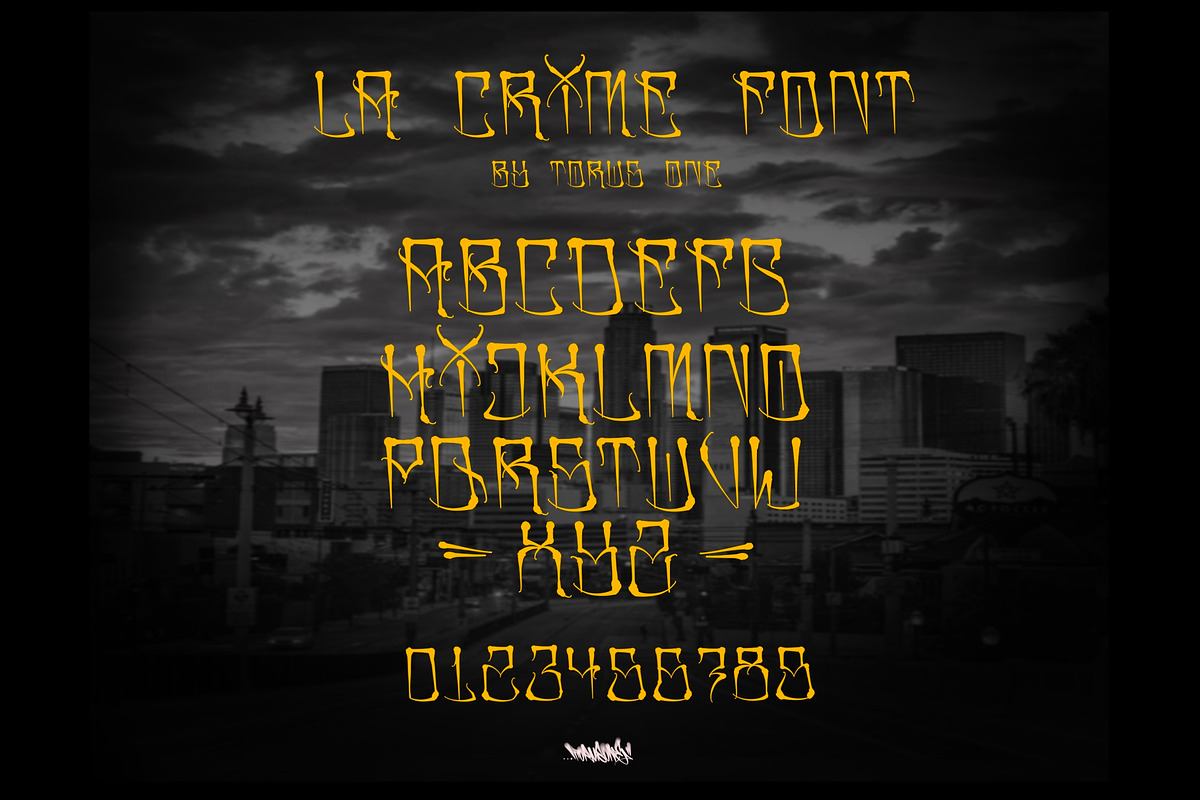
Chicano Gangsta Graffiti Font - LA Free Download
Chicano Gangsta Graffiti Font – LA Free Download is a bold, expressive typeface inspired by West Coast street art and classic Chicano tattoo lettering. With sharp edges, flowing strokes, and heavy urban influence, this font is perfect for graffiti-style artwork, hip-hop event posters, streetwear branding, music covers, and designs that need raw attitude with cultural depth.
Rooted in the spirit of Los Angeles street culture, this font captures the essence of identity, rebellion, and pride. Whether you're creating merch, digital content, or signage with edge, Chicano Gangsta gives your work a distinct and authentic voice. It’s available for free testing, but a commercial license is required for any business or monetized use.
Stand out with streetwise style using Chicano Gangsta Graffiti Font – LA Free Download and give your designs a gritty, West Coast vibe that commands attention. It’s a must-have for artists and designers who respect and represent bold urban expression.